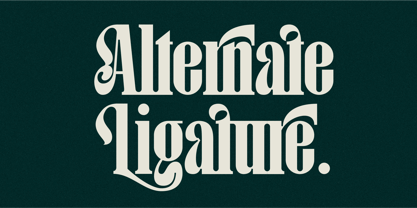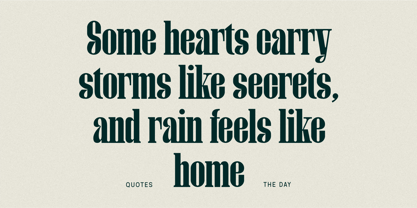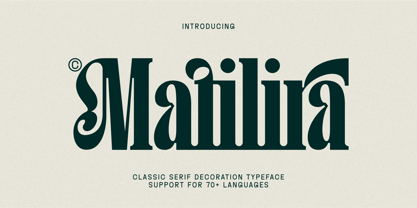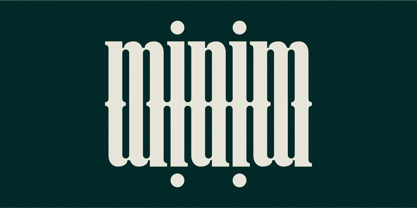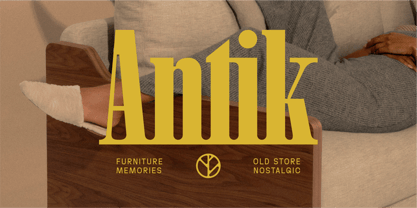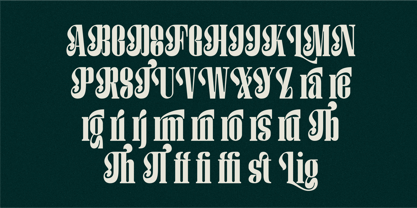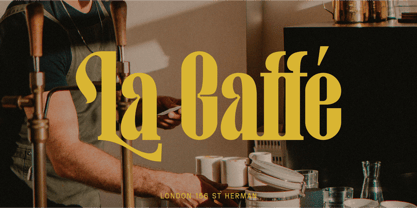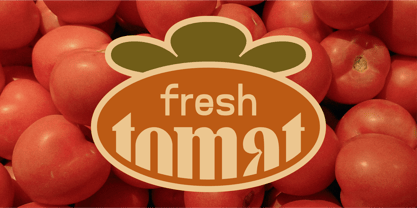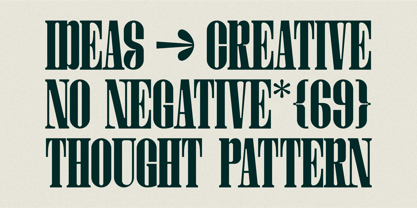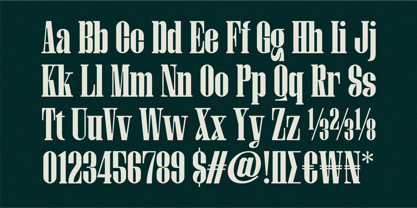
Matilira
by Marvadesign
The Matilira Font Family was designed by Febrie Setiawan and published by Marvadesign. Matilira contains 1 styles. More about this family
Matilira is a decorative serif typeface known for its bold structure, artistic flair, and vintage charm. It features strong vertical strokes, unique ligatures, and playful alternates, making it stand out in display use. The elegant curves and ornamental details lend a sense of sophistication and creativity, perfect for branding that aims to make a statement. This typeface is ideal for logos, posters, packaging, apparel graphics, and editorial headlines where a touch of classic elegance meets modern boldness. Its stylistic versatility makes it suitable for both nostalgic and contemporary design aesthetics
Designers: Febrie Setiawan
Foundry: Marvadesign